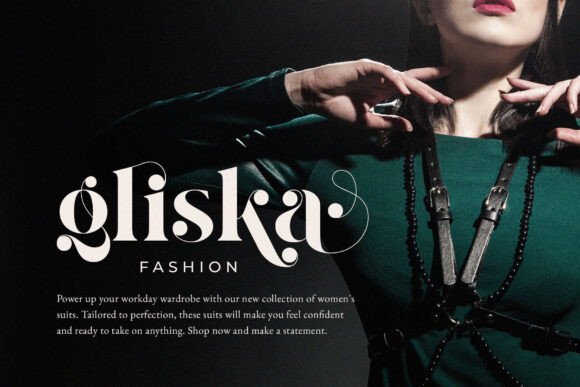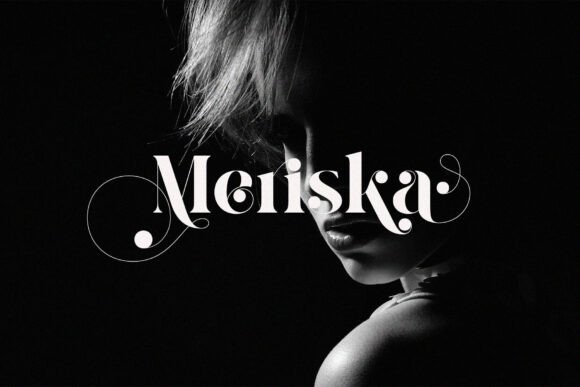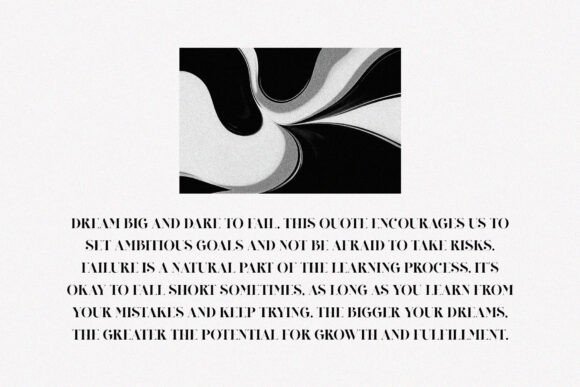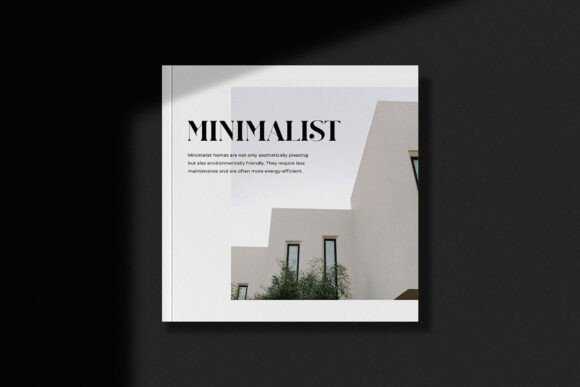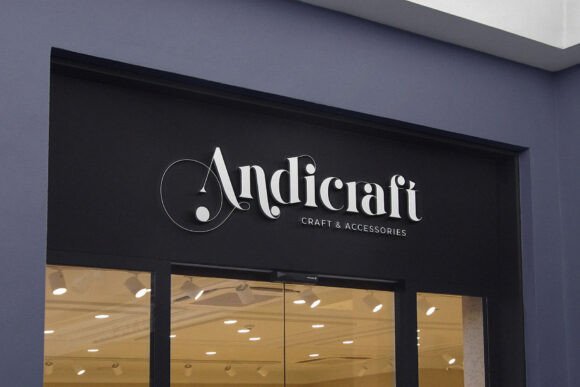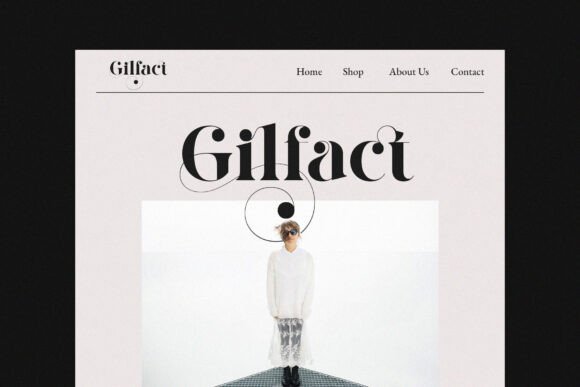
Introduction to Eline Novika Font Font
Fonts play a crucial role in design, and the Eline Novika Font font is a typeface that brings both character and versatility to any project. Whether you’re working on a branding project, a website, or a print design, the Eline Novika Font font offers a unique style that can elevate your work.
Introducing Eline Novika Elegant Display Serif.
Eline Novika is a modern, elegant, and classy display serif, best used as a display for headings, logos, branding, magazines, product packaging, and invitations Eline Novika is equipped with Ligature and many Alternates and comes with clean lines and smooth curves, giving any project an extra touch of class.
Key Features of Eline Novika Font Font
Why Choose Eline Novika Font Font?
The Eline Novika Font font is more than just a typeface – it’s a design tool that helps you communicate your message with style and clarity. Its unique character set and versatile design make it suitable for a wide range of applications, from elegant invitations to bold headlines.
With its carefully crafted letterforms and balanced proportions, the Eline Novika Font font ensures readability and visual appeal across all mediums.
What makes Eline Novika Font font special?
The Eline Novika Font font stands out with its unique design, exceptional readability, and versatility across various design applications.